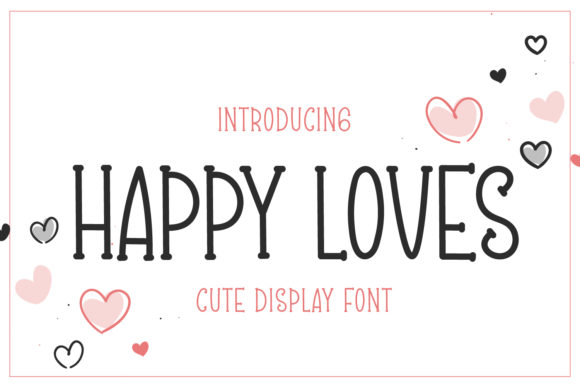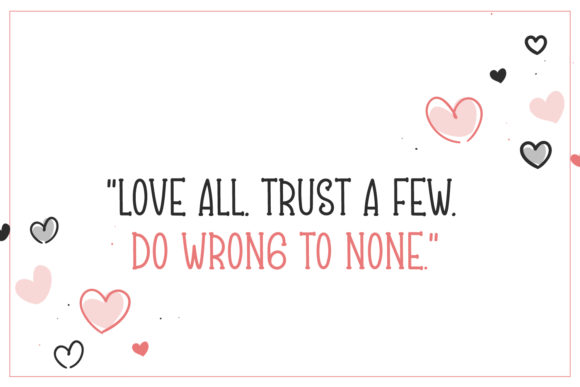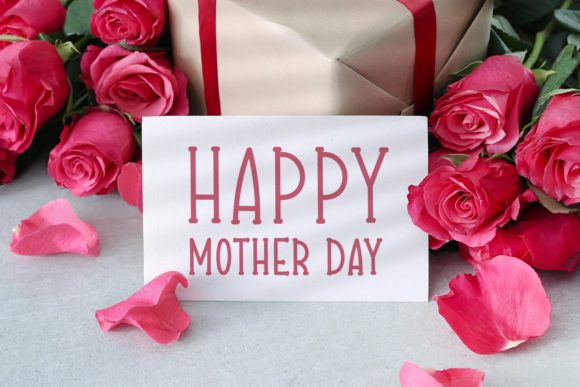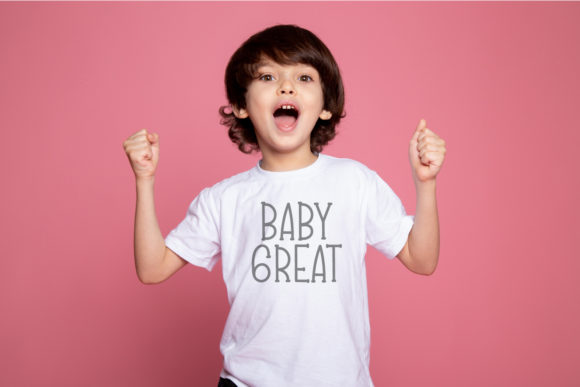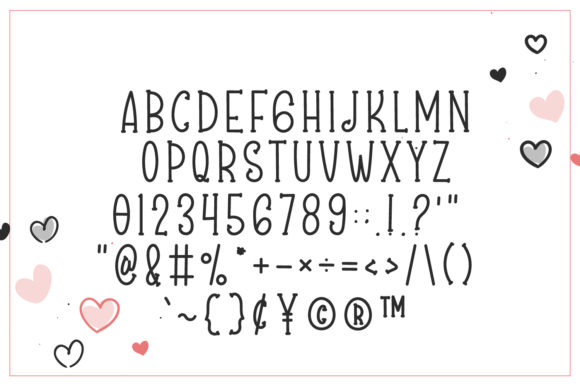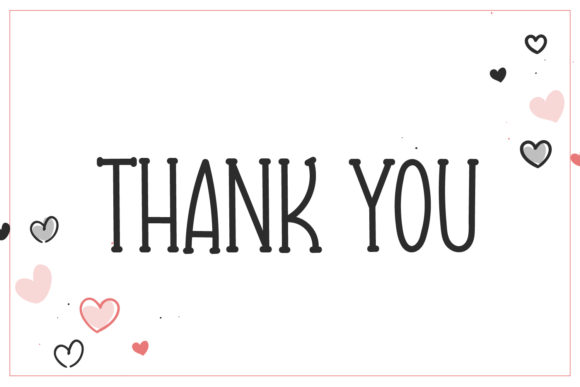
Happy Loves Font
About Happy Loves Font
Happy Loves is a delightful and versatile script font that captures the essence of charm and happiness. With its flowing and whimsical letterforms, this font brings a sense of joy and playfulness to any design project.
The versatility of Happy Loves allows it to shine in a wide range of applications. Whether you’re creating logos, designing wedding invitations, crafting social media posts, or working on branding materials, this font adds a touch of enchantment and personality to your designs.
The unique style of Happy Loves is sure to capture attention and leave a lasting impression. Its graceful curves and varying stroke widths create an organic and dynamic look, evoking a sense of energy and positivity. The font’s handwritten appearance adds a personal and authentic touch to your text, making it perfect for projects that require a warm and friendly vibe.
Happy Loves is designed with ease of use in mind. Each letter is carefully crafted to ensure smooth connections and legibility, allowing your text to flow seamlessly. This makes it a breeze to create beautiful and eye-catching designs without sacrificing readability.
The versatility of Happy Loves extends to various design elements. Whether you’re adding a playful touch to headlines, creating decorative elements, or incorporating the font into illustrations, it effortlessly complements your creative vision. Its open and airy letterforms allow for easy integration with other design elements, making it a perfect choice for adding a touch of charm to your artwork.
Overall, Happy Loves is a charming script font that brings a sense of joy and versatility to your design projects. With its flowing letterforms, playful style, and ease of use, it allows you to create spectacular designs that evoke happiness and captivate your audience. Fall in love with Happy Loves and let it inspire your creativity to new heights.